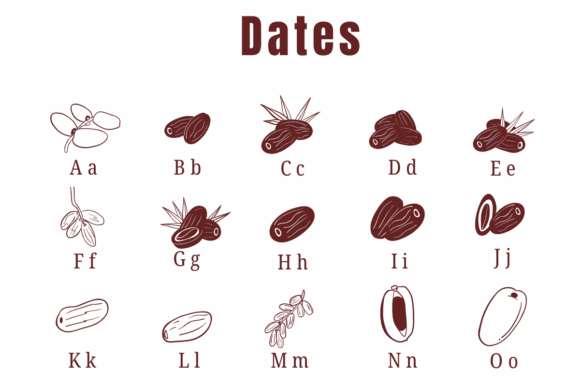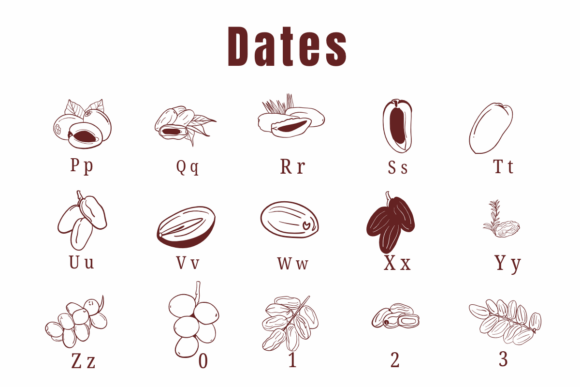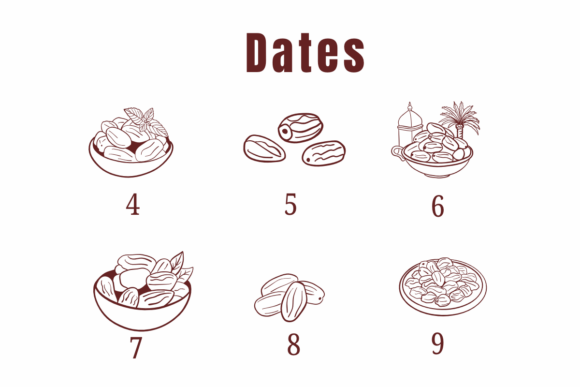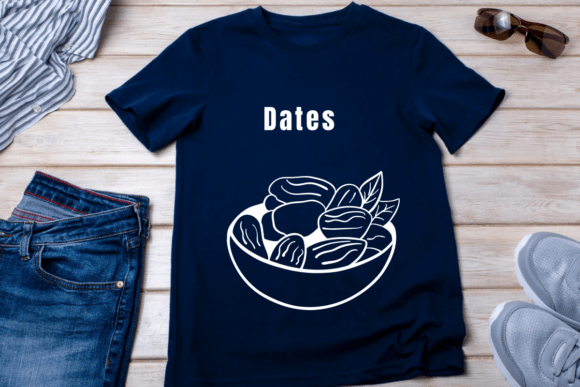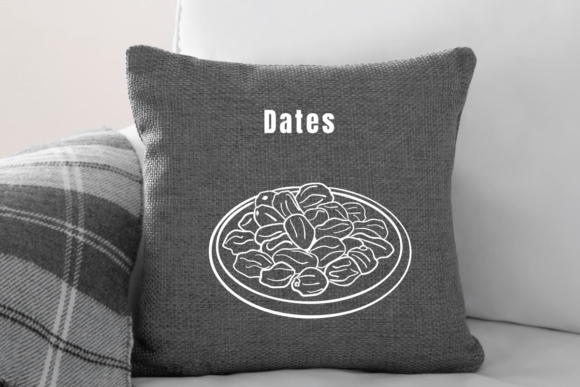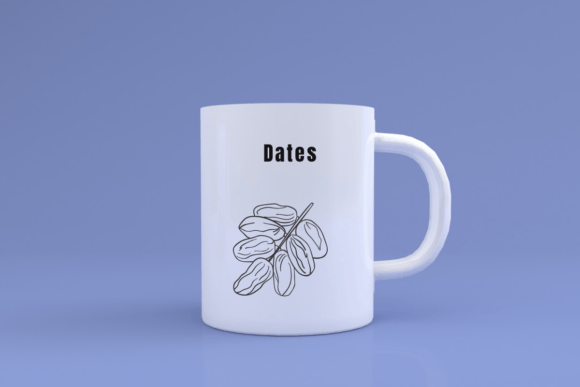
Introducing Dates Font: A Natural and Creative Dingbats Font
Are you looking for a unique and creative font to enhance your projects? Look no further than Dates Font, a beautiful dingbats font with a natural theme. This font is perfect for designers, crafters, and DIY enthusiasts who want to add a personal touch to their work. In this article, we’ll explore the features and benefits of Dates Font, and show you how it can elevate your creative projects.
What is Dates Font?
Dates Font is a dingbats font that features natural elements, such as fruits, flowers, and leaves. This font is designed to inspire creativity and add a touch of whimsy to your projects. With its unique and colorful characters, Dates Font is perfect for a variety of applications, including wedding invitations, DIY crafts, decorations, logos, and more.
Key Features of Dates Font
- Natural Theme: Dates Font features a natural theme, with characters inspired by fruits, flowers, and leaves.
- Dingbats Font: This font is a dingbats font, which means it features symbols and characters rather than traditional letters.
- Unique and Colorful: Dates Font is designed to be eye-catching and creative, with unique and colorful characters.
- Scalable: This font is scalable, which means you can use it for a variety of projects, from small crafts to large-scale designs.
Uses for Dates Font
Dates Font is a versatile font that can be used for a variety of creative projects. Here are some ideas to get you started:
- Wedding Invitations: Add a touch of elegance and whimsy to your wedding invitations with Dates Font.
- DIY Crafts: Use Dates Font to create custom labels, cards, and decorations for your DIY crafts.
- Decorations: Add a personal touch to your home decorations with custom signs, banners, and wall art featuring Dates Font.
- Logos: Use Dates Font to create a unique and memorable logo for your business or brand.
- Stationery: Create custom stationery, such as notebooks, journals, and greeting cards, with Dates Font.
Benefits of Using Dates Font
There are many benefits to using Dates Font in your creative projects. Here are a few:
- Unique and Creative: Dates Font is a unique and creative font that will set your projects apart from the rest.
- Scalable: Dates Font is scalable, which means you can use it for a variety of projects, from small crafts to large-scale designs.
- Inspires Creativity: Dates Font is designed to inspire creativity and add a touch of whimsy to your projects.
Tips for Using Dates Font
Here are a few tips for using Dates Font in your creative projects:
- Experiment with Colors: Dates Font is designed to be colorful, so don’t be afraid to experiment with different colors and combinations.
- Mix and Match: Mix and match Dates Font with other fonts and graphics to create a unique and eye-catching design.
- Use for Headlines and Titles: Use Dates Font for headlines and titles to add a touch of whimsy and creativity to your projects.
- Get Creative: Don’t be afraid to get creative and try new things with Dates Font. Its unique characters and natural theme make it perfect for a variety of applications.